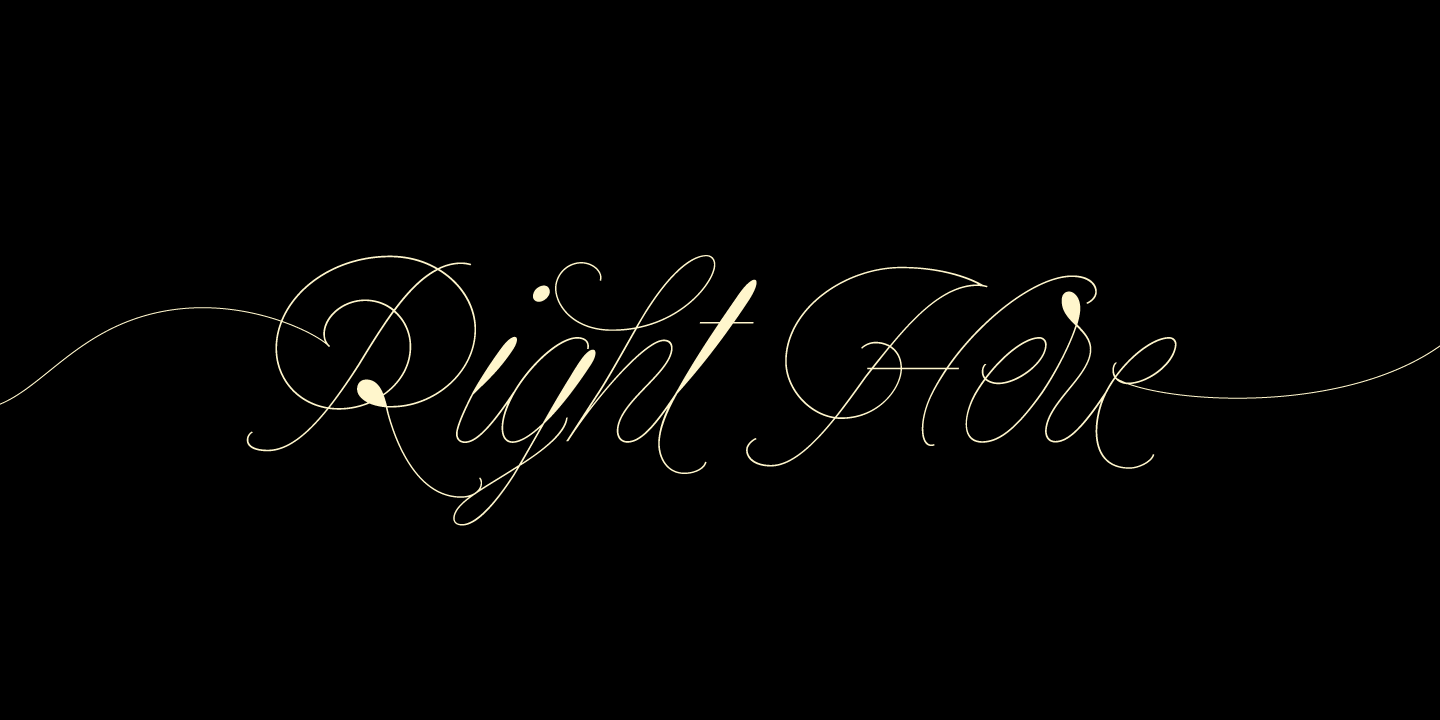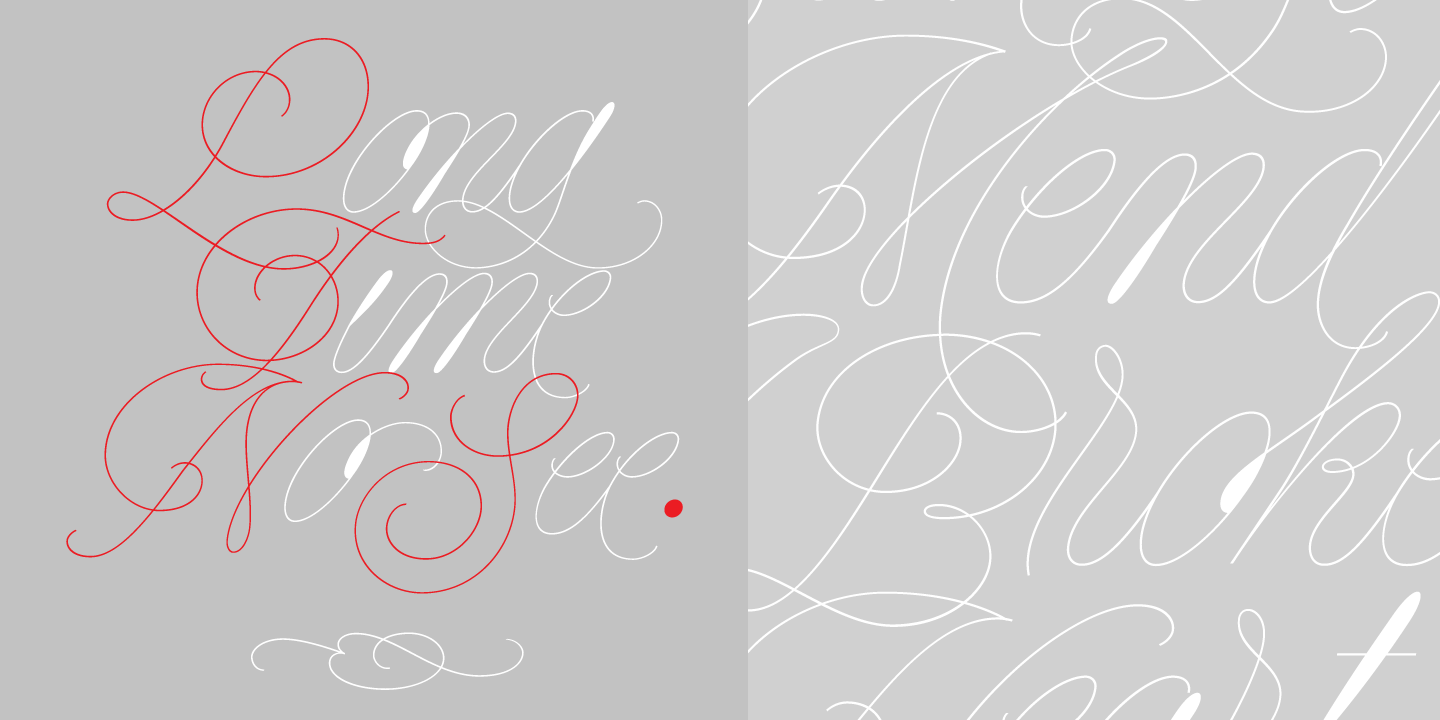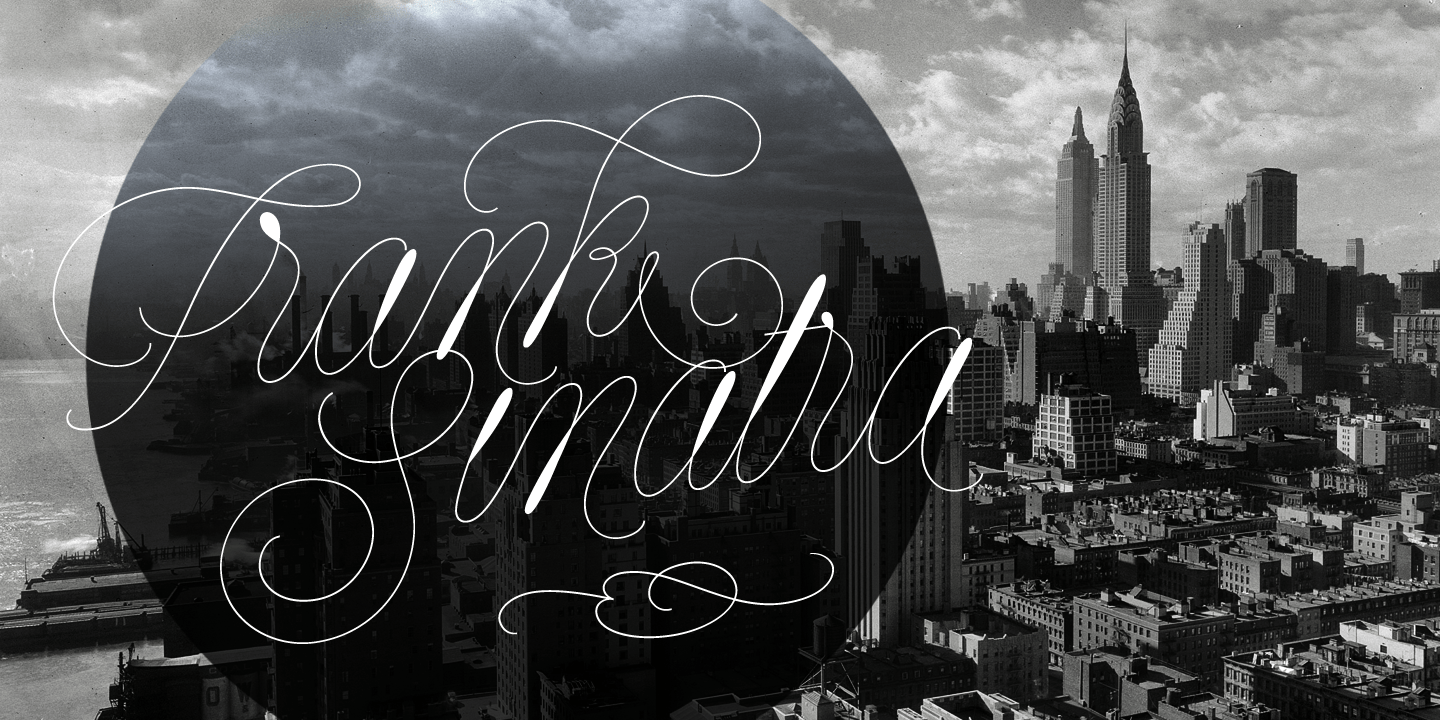
About String
Inspired by the sound of acoustic guitars, delicacy of harps and elegance of the engrossers script, String is a trendy monoline font which will for sure make unique layouts for your pieces of design. Combining String with String Hole in the same word…